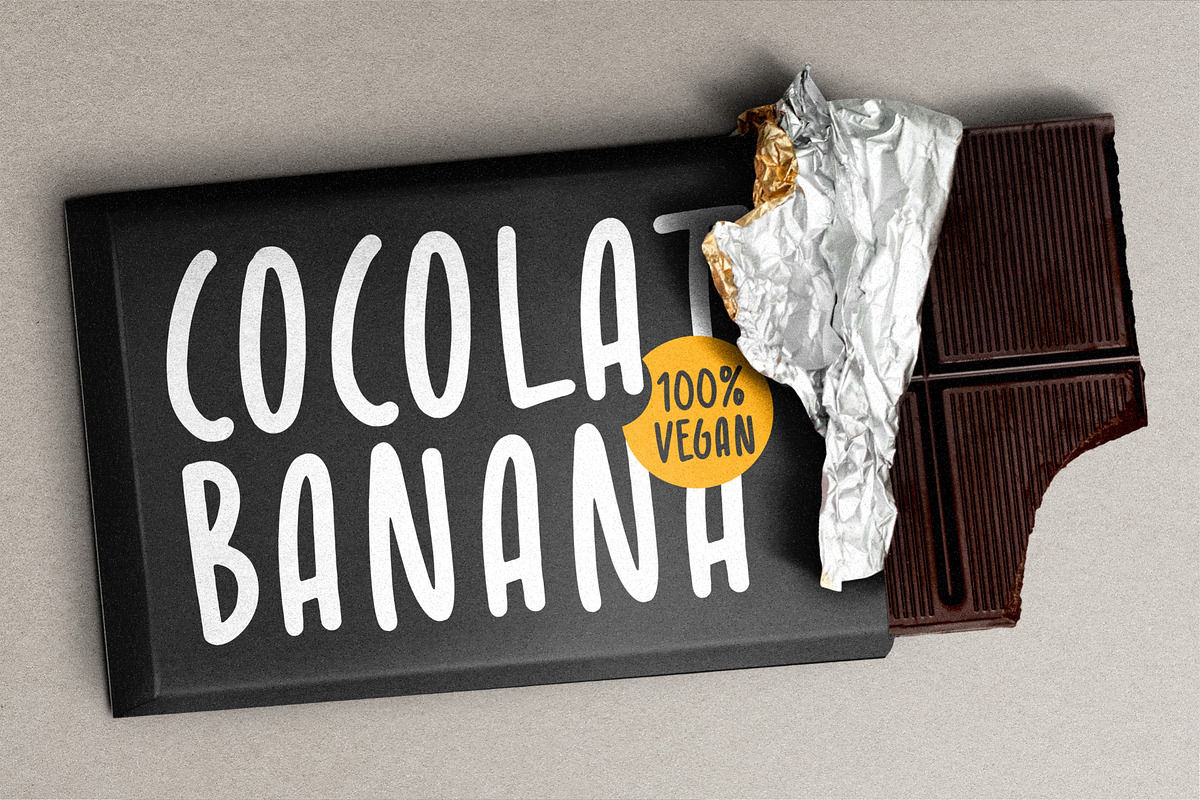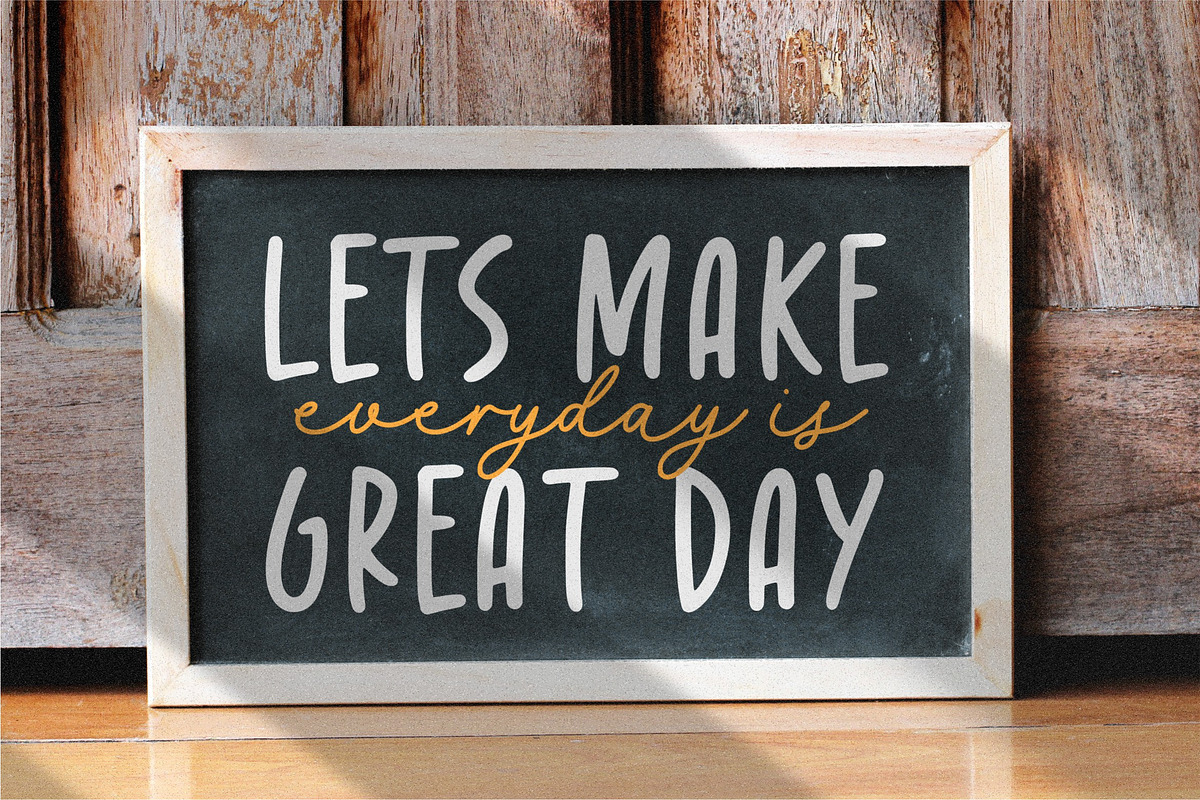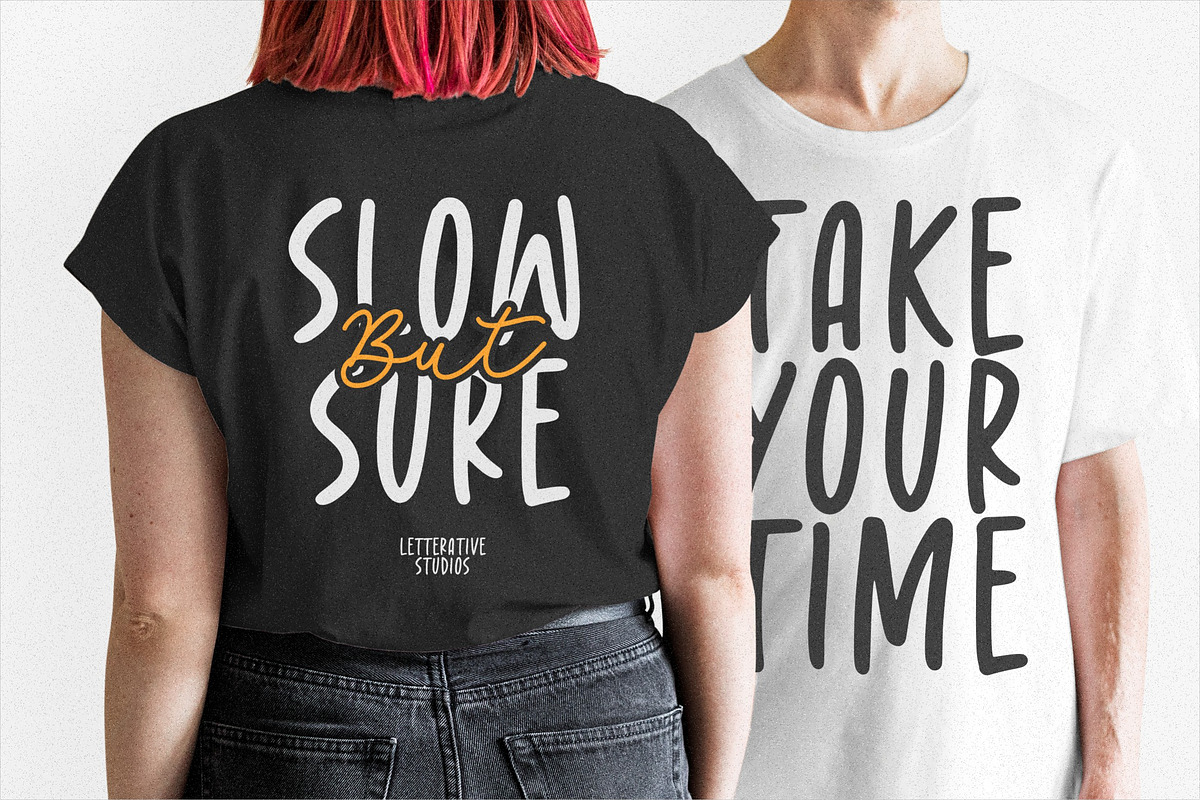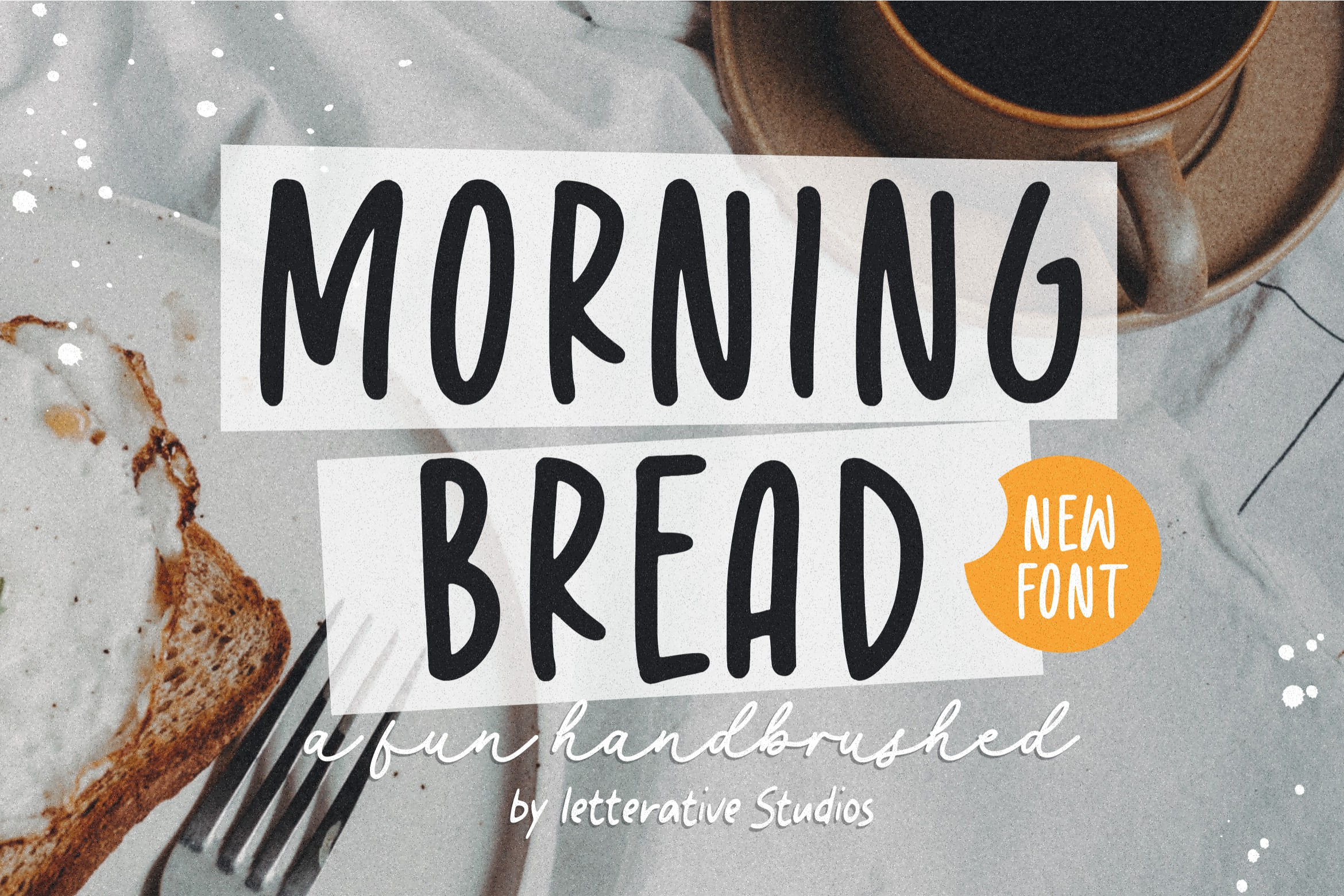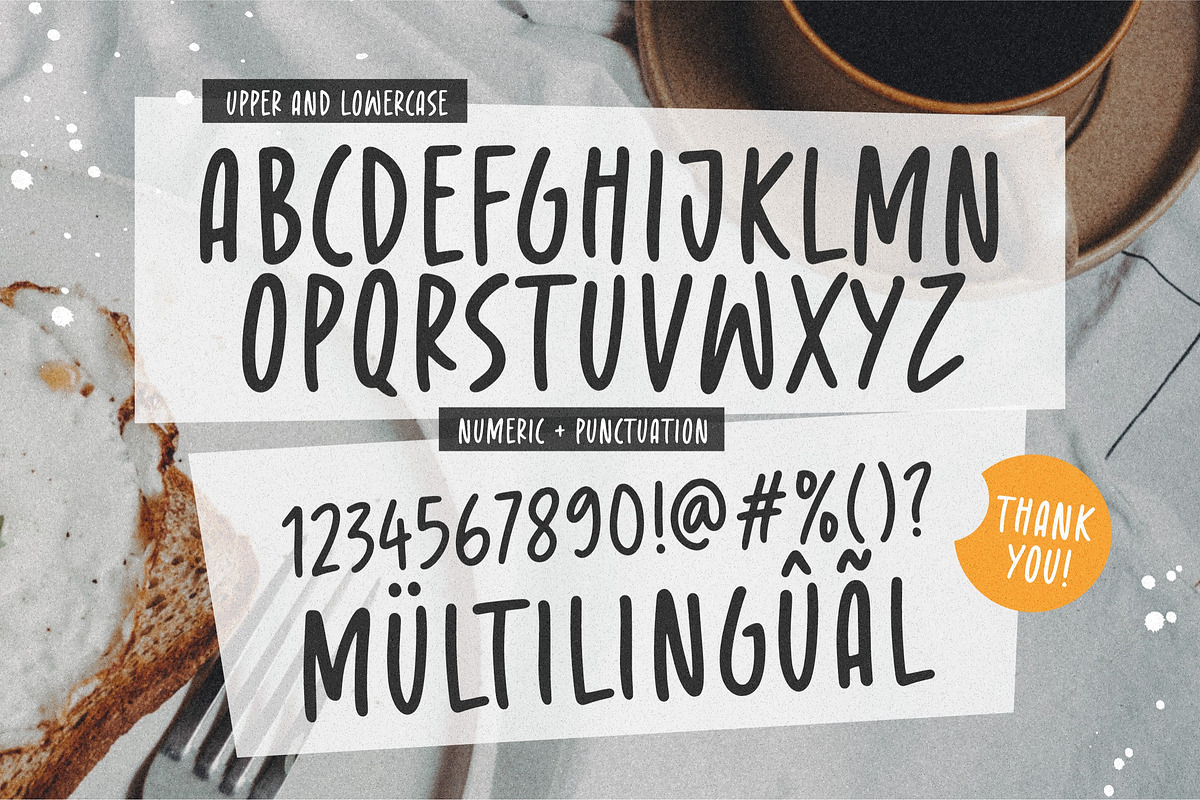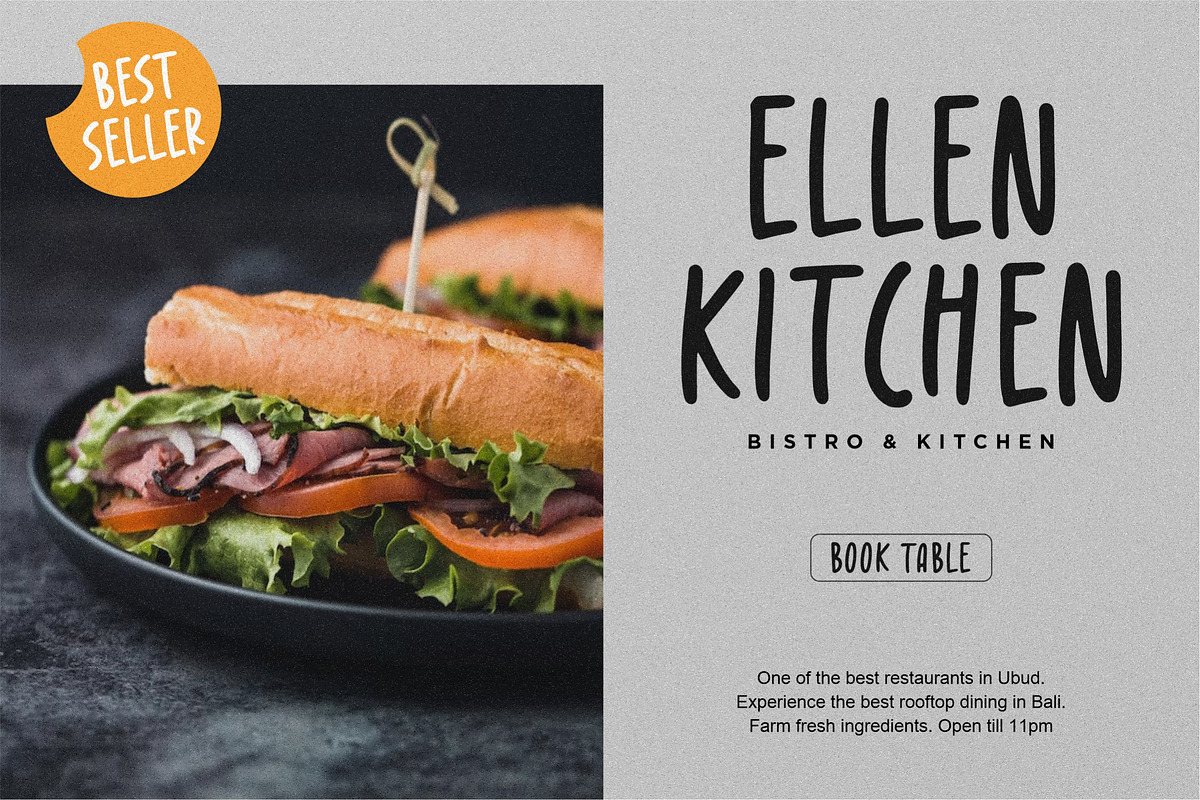
Morning Bread - Handbrushed Font
Introducing by Letterative Studio : Morning Bread Font
Morning Bread is a Fun Handbrushed Font.
This font only has uppercase letters. Perfect for creating logos, greeting cards, posters, packaging and so much more! Its charming and warm character will help you give your project a truly unique feel.
- also multilingual support
- ALL CAPS Font